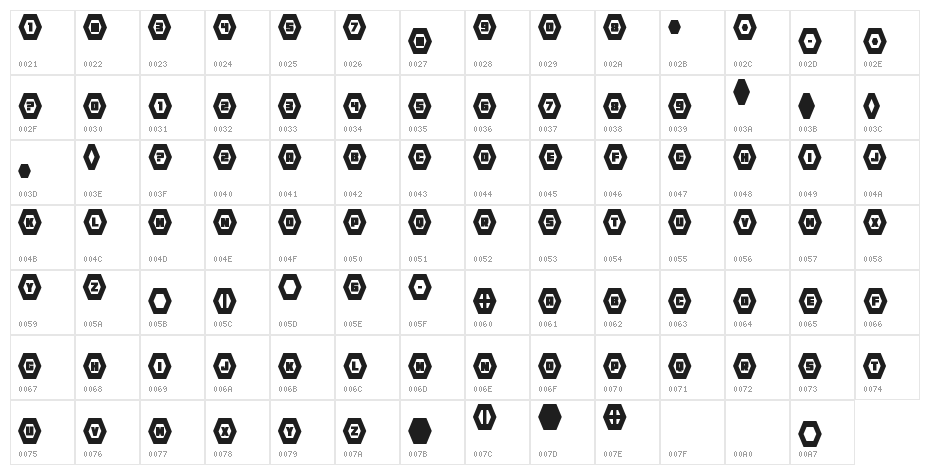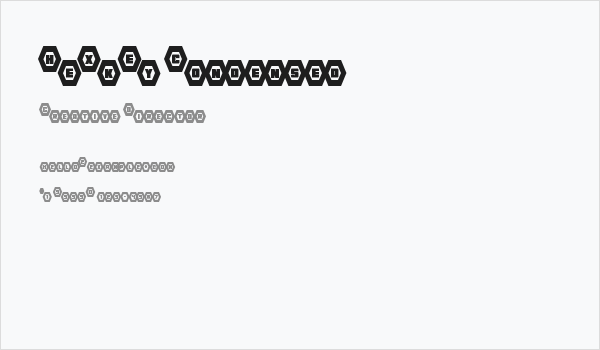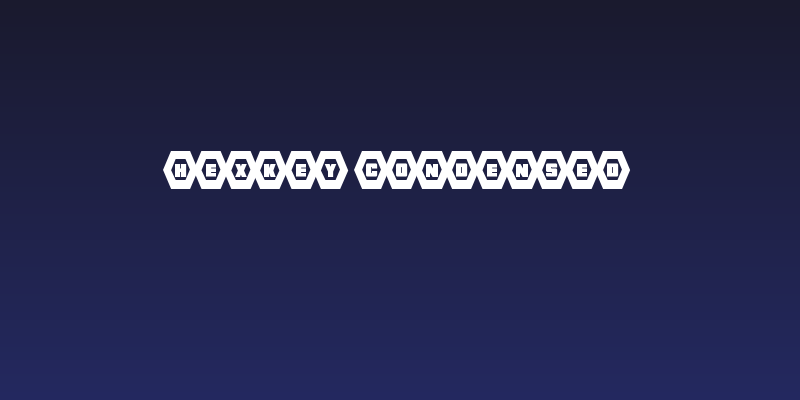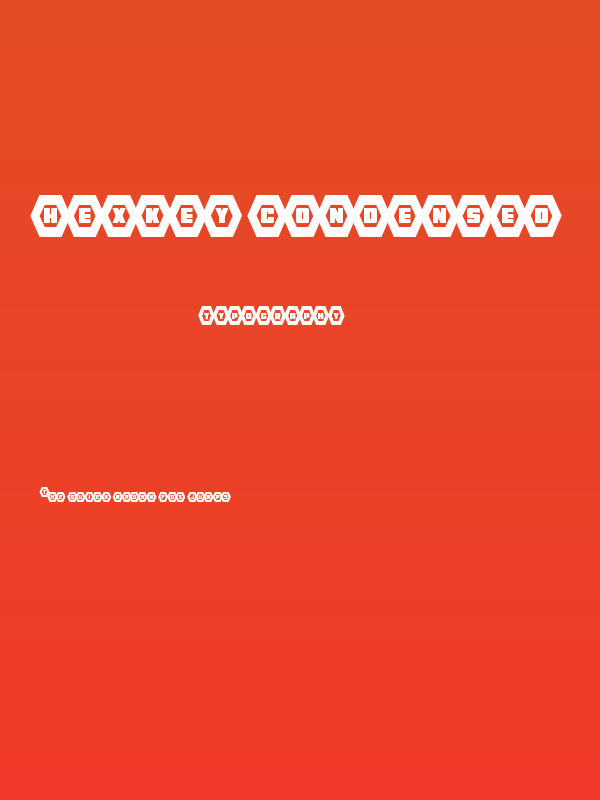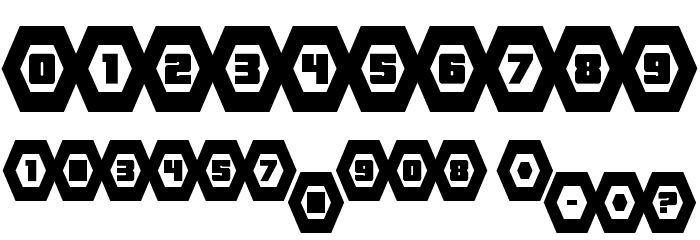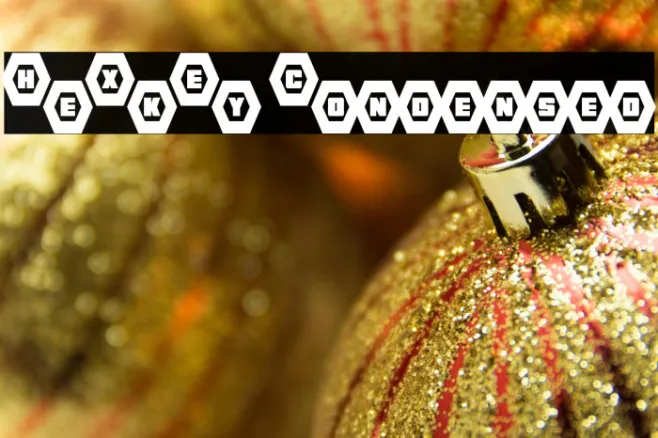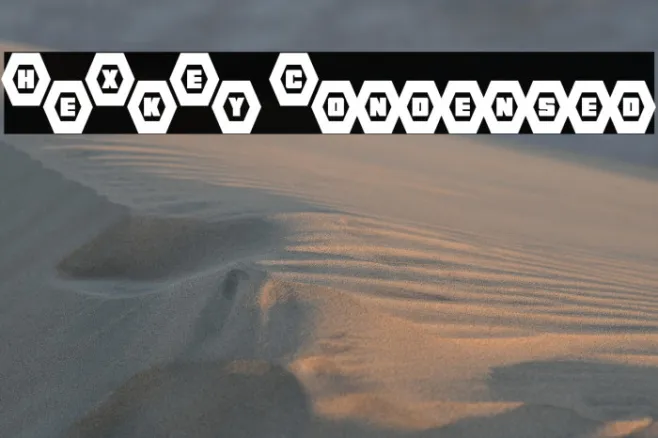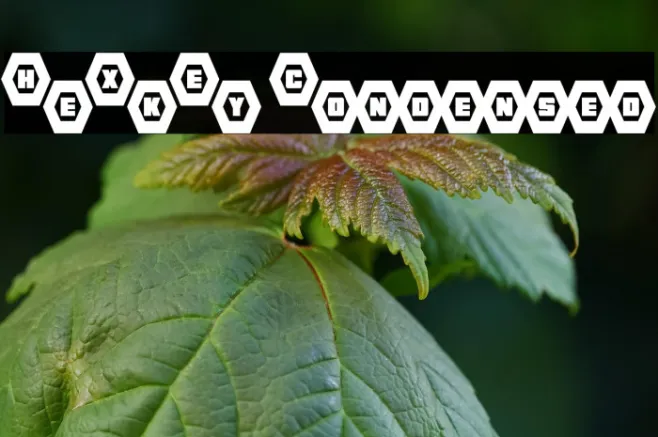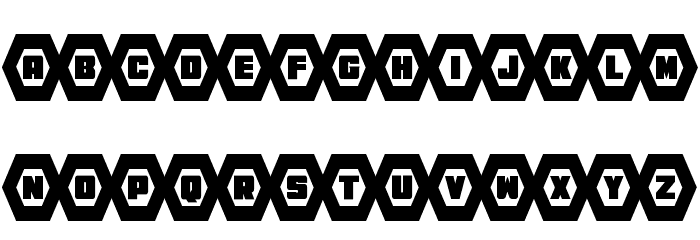
HeXkEy Condensed Font
HeXkEy Condensed Description
This font features a bold, geometric design with each character enclosed within a hexagonal shape. The letters and numbers are uniformly styled, creating a cohesive and striking appearance. The thick, solid lines of the characters contrast sharply with the negative space, enhancing readability while maintaining a distinct, futuristic aesthetic. The font's unique structure makes it ideal for projects that require a modern and edgy look. Its hexagonal theme is consistent across uppercase, lowercase, numbers, and special characters, providing a unified visual experience.
| Proposed Projects | Ideal for technology branding, video game titles, sci-fi themed posters, and modern logos. |